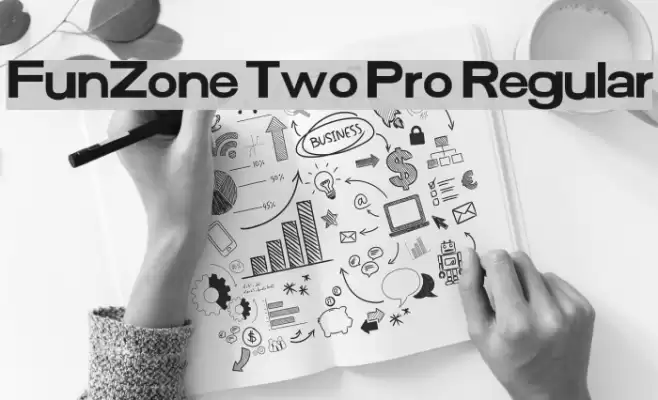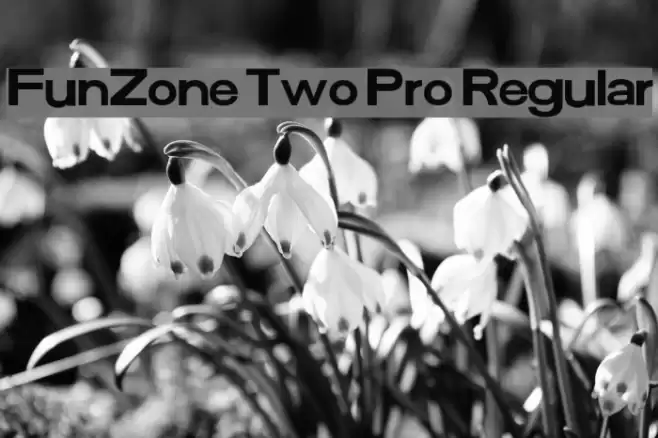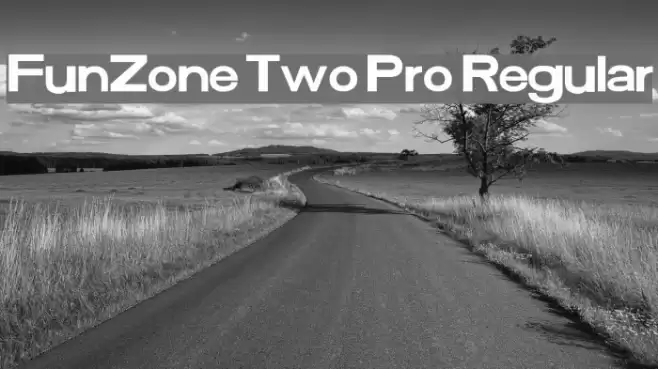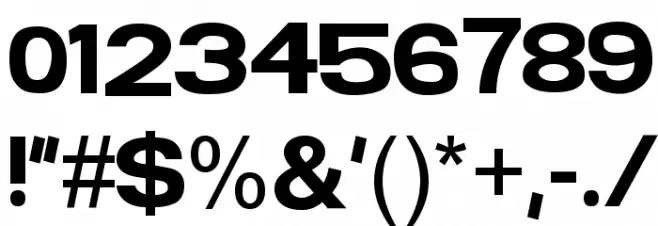
FunZone Two Pro Regular Font
FunZone Two Pro Regular Description
This font exhibits a bold and modern sans-serif style, characterized by clean lines and a strong presence. The uppercase and lowercase letters maintain a consistent weight, contributing to a uniform appearance. The numerals are clear and easily distinguishable, while the special characters are well-integrated, enhancing the font's versatility. Its geometric structure and balanced proportions make it suitable for a variety of design applications. The overall aesthetic is contemporary, making it ideal for projects that require a fresh and dynamic look.
A bold, modern sans-serif font with clean lines and a strong presence from Uncategorized fonts.
- Proposed Projects: Ideal for branding, advertising, headlines, and digital media projects.
- Use Case: Headlines, Logos, Branding